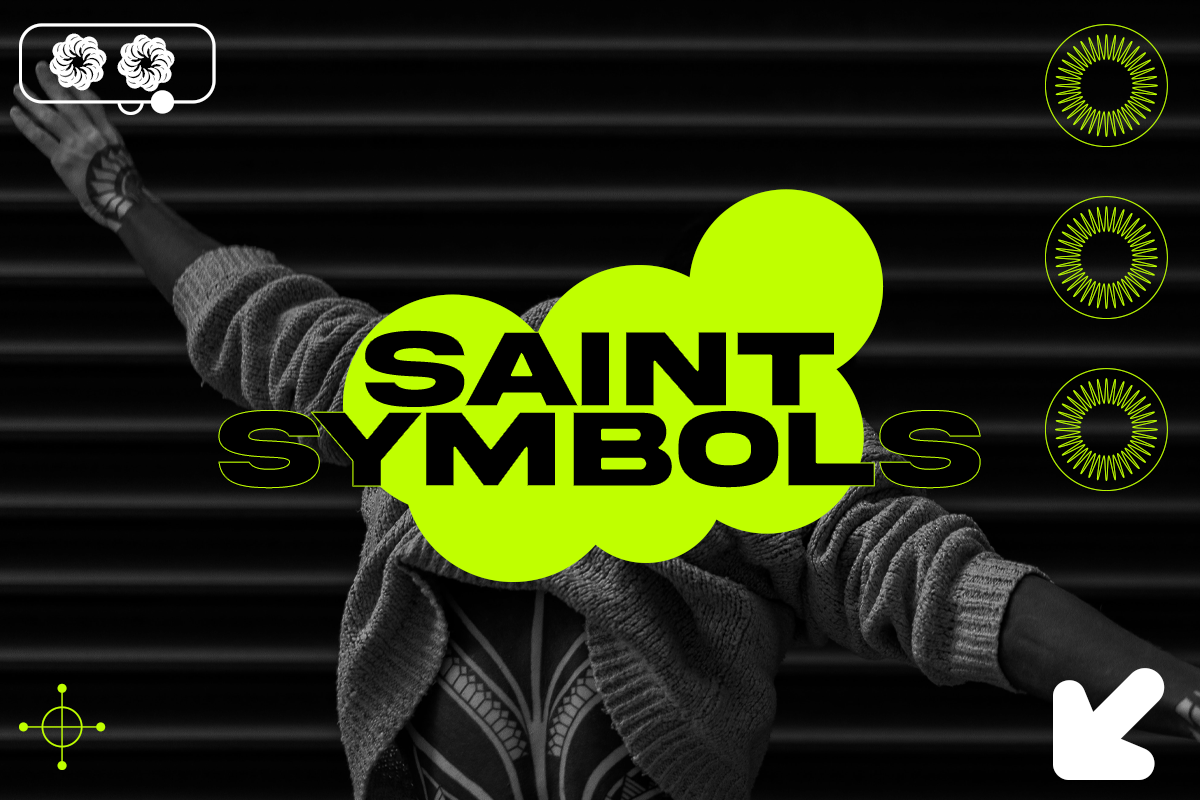
SAINTSYMBOLS - FONT
SAINTSYMBOLS - the original idea was to save time when I was working in Blender 3D and use a ready-made font instead of an svg shapes. But later I liked using it so much in graphics and posters that I decided to supplement it and make a full-fledged font!
Tips for using: graphics, streetwear designs, posters, covers, stories, posts in social media, branding, 3D software, 3D graphics.
The glyphs:
- 0-1
- A-Z
- a-z
- punctuation
All of the glyphs NOT the characters (letters), just a symbols!